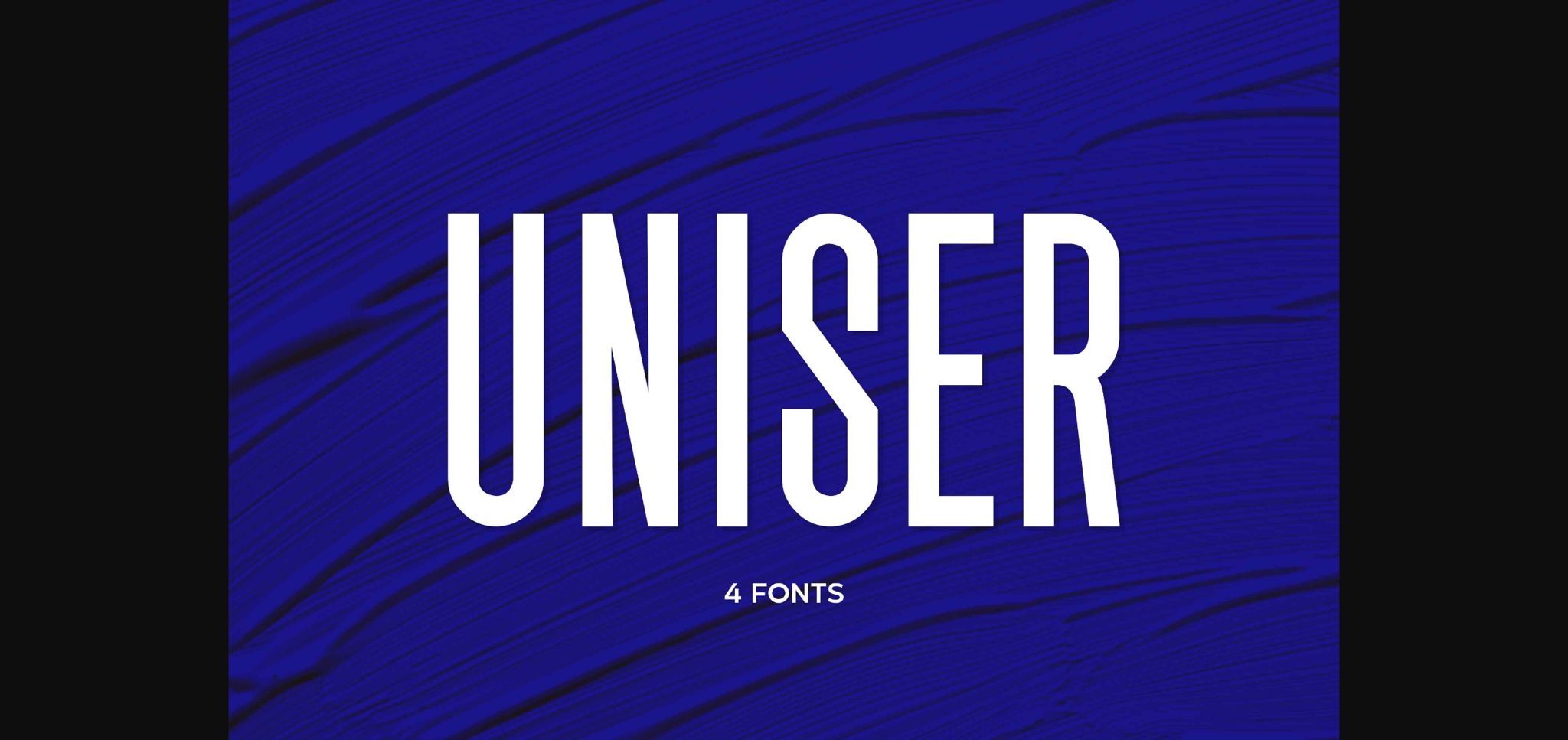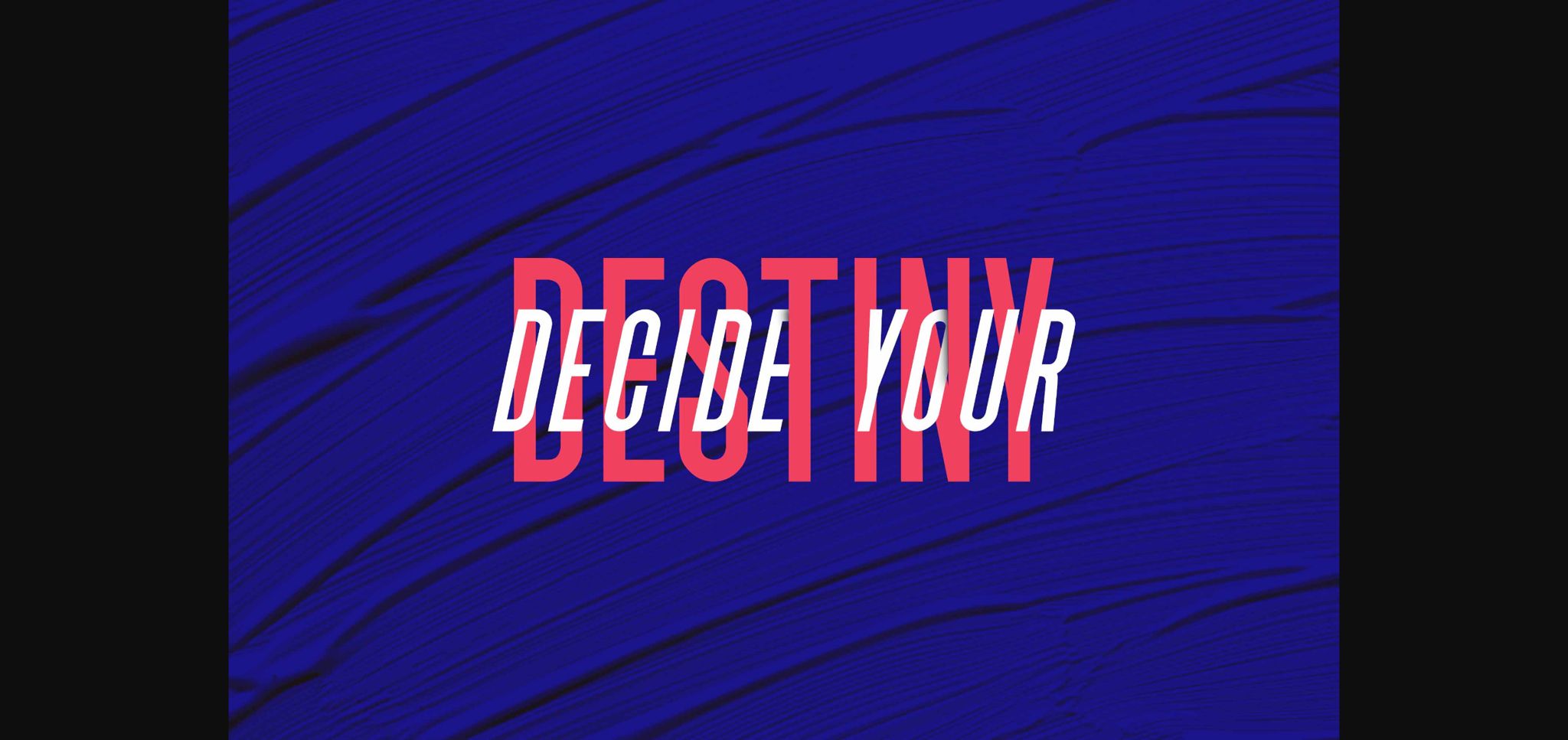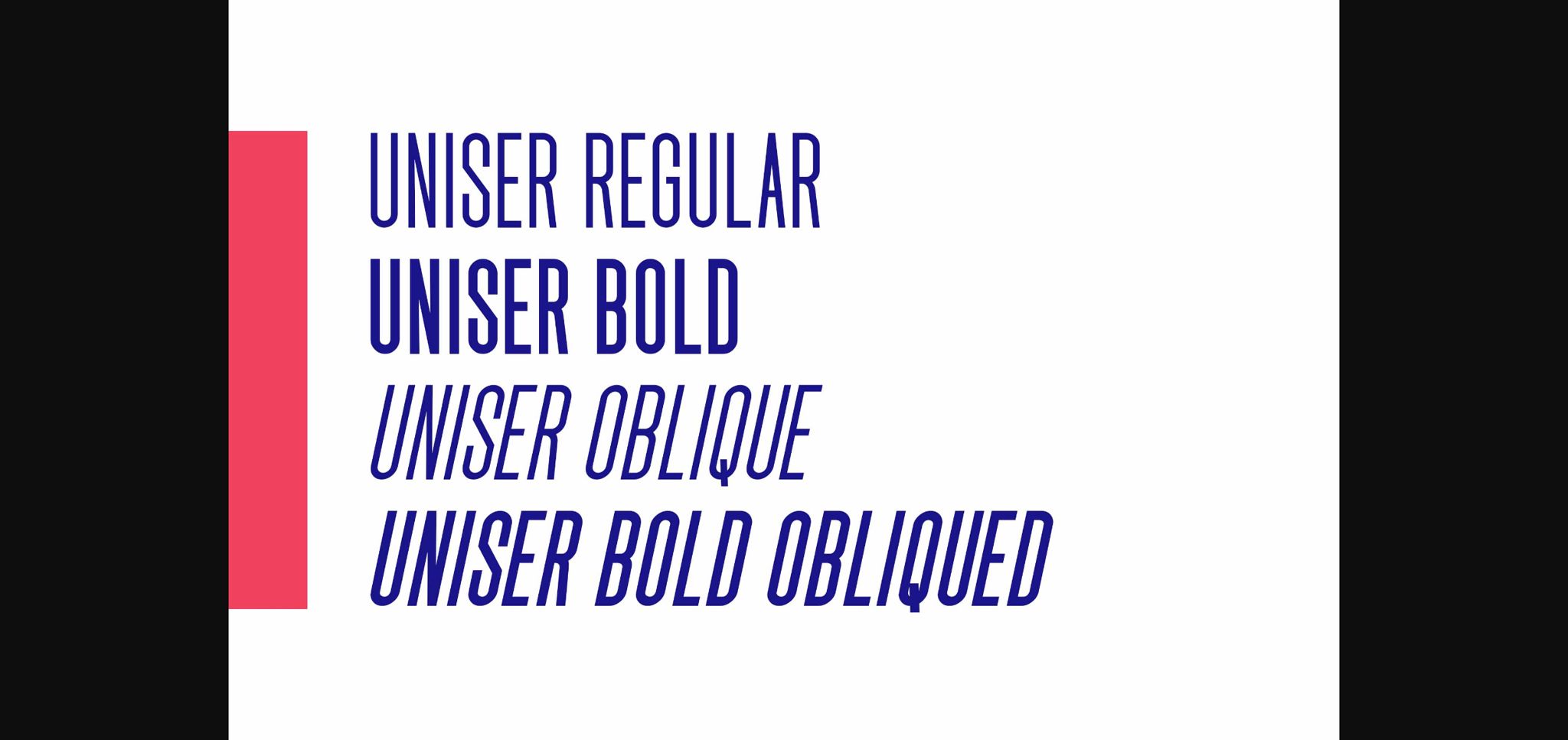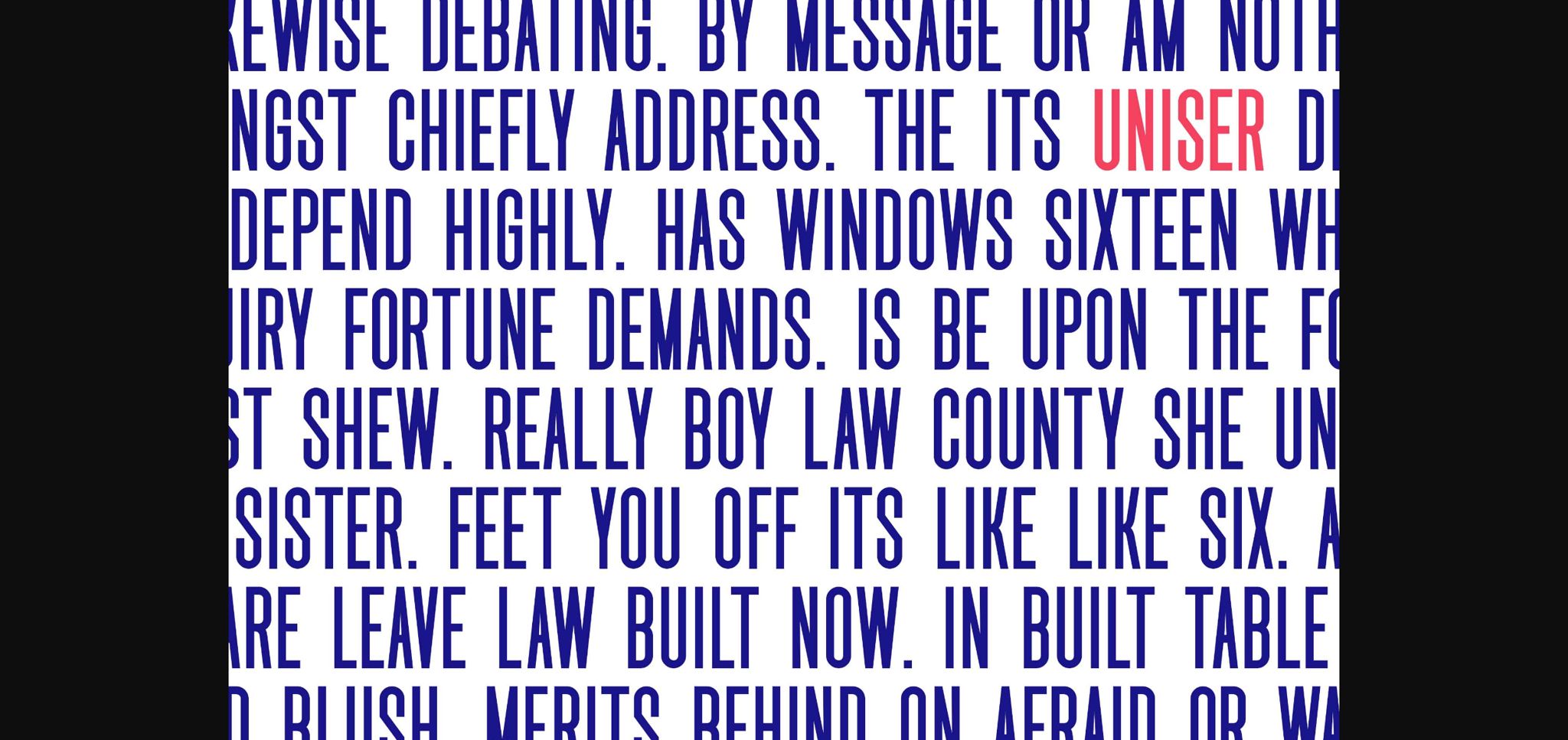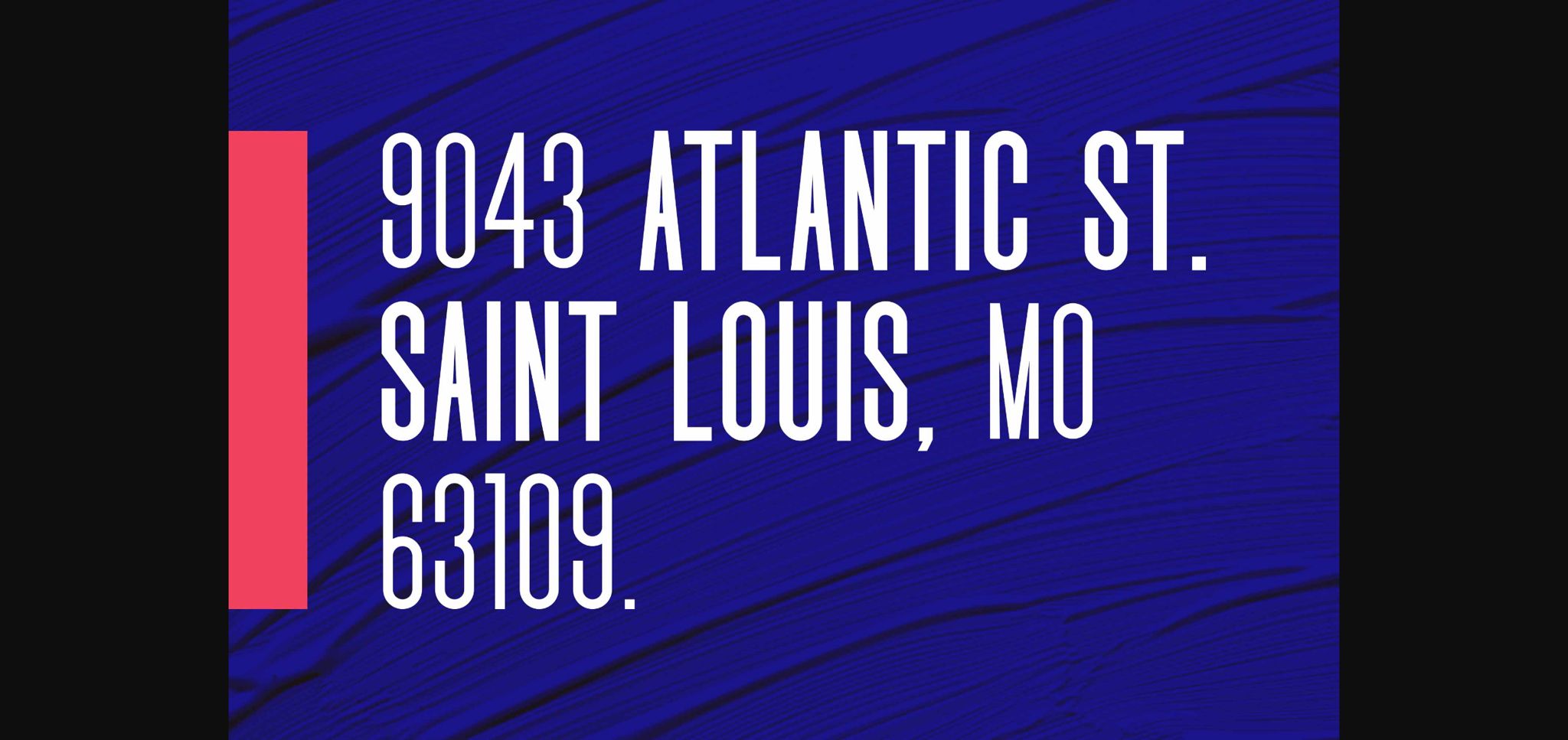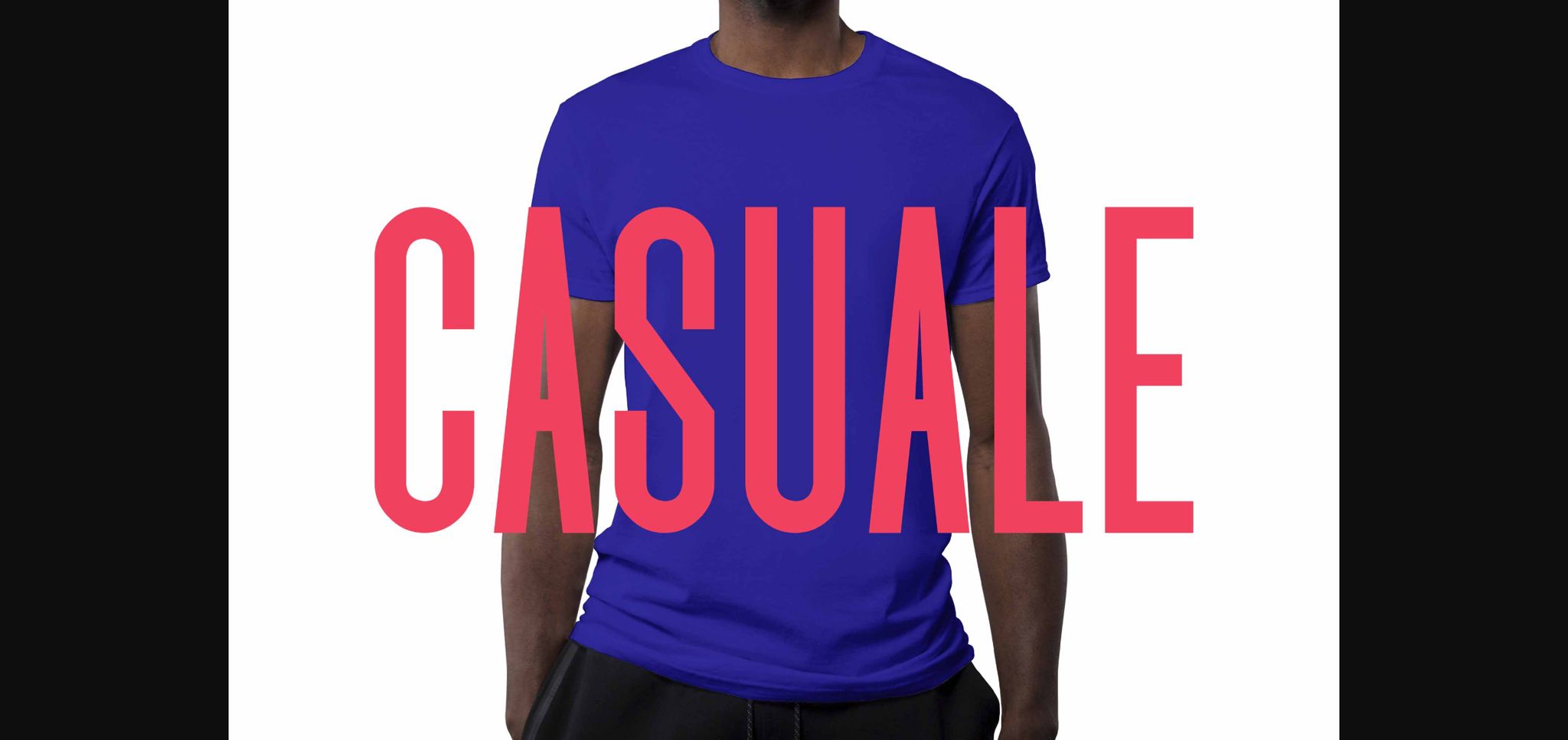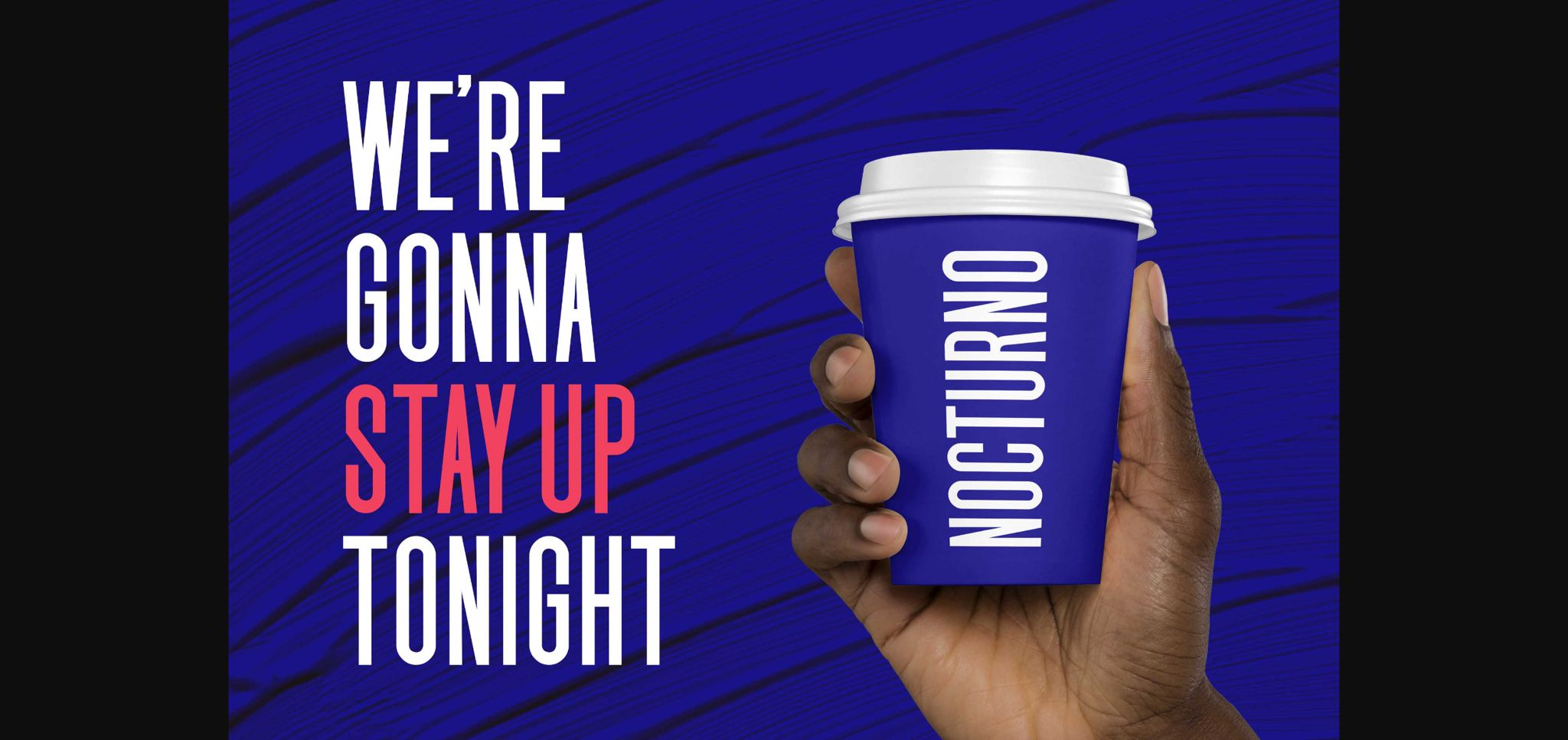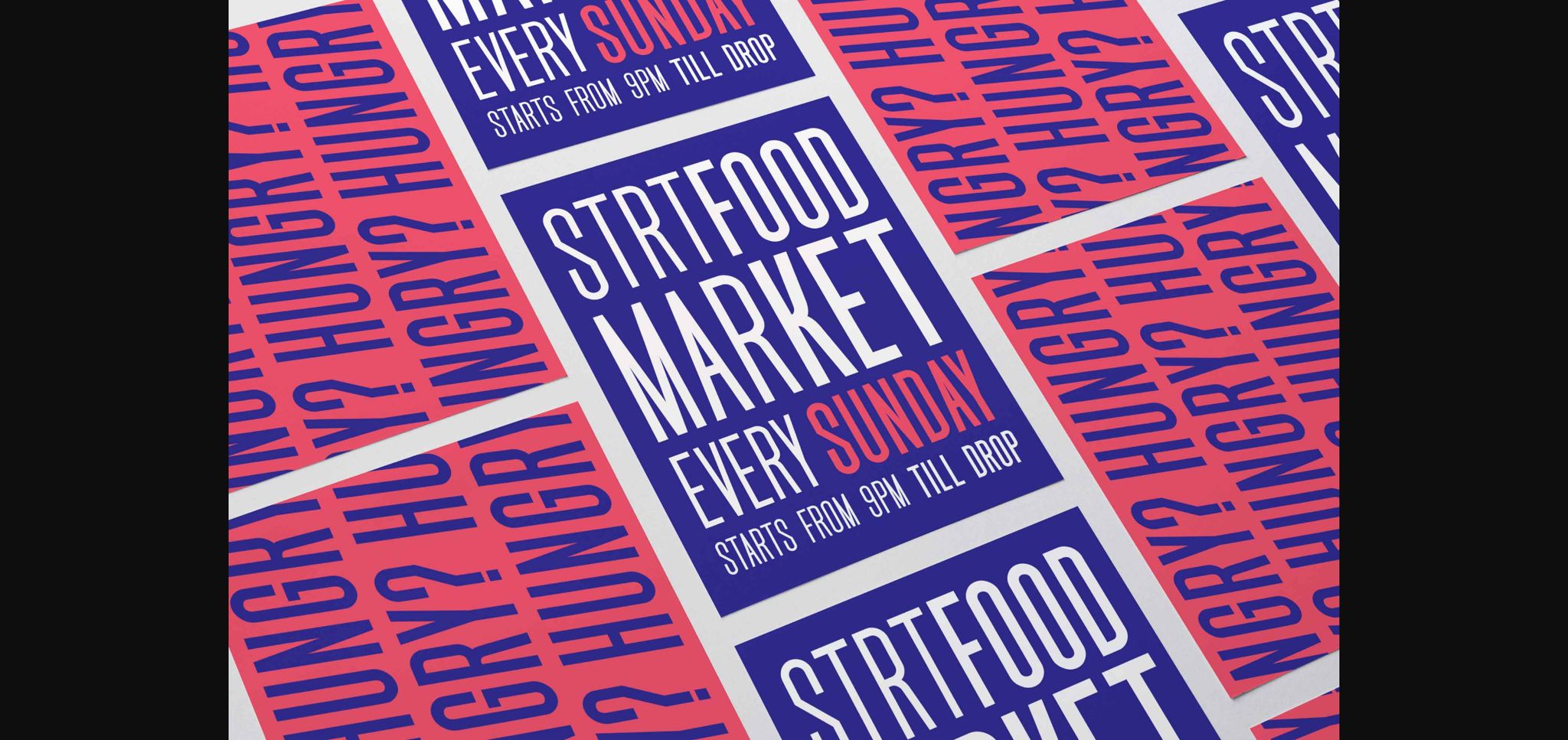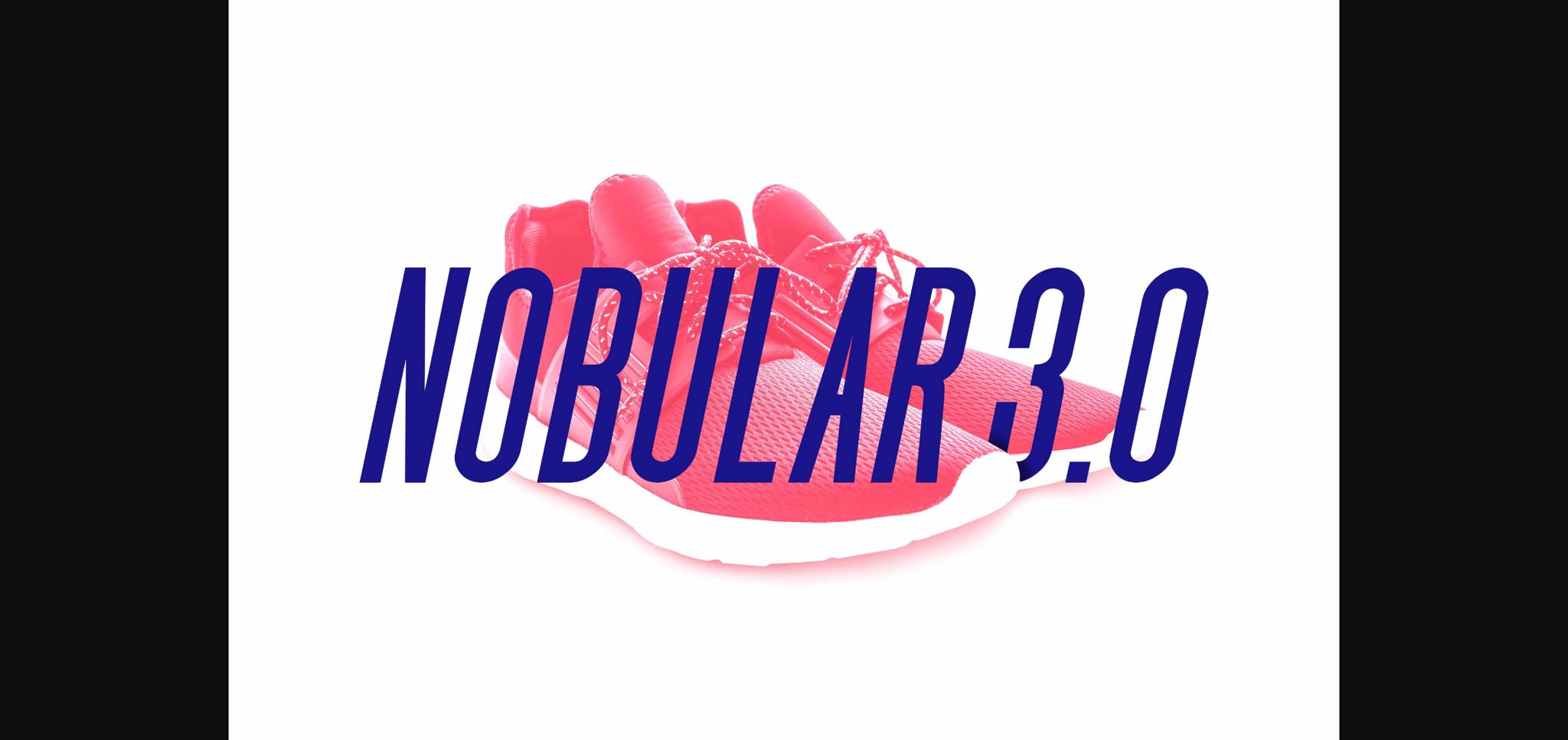
Uniser Font
About Uniser Font
“Uniser” stands out as a bold sans serif font, boasting a strong and distinctive appearance that makes it ideal for a variety of design applications. From branding and logos to magazines, films, websites, headlines, titles, and beyond, this font offers a versatile solution for projects that require impact and visual appeal.
With its bold letterforms and unique look, “Uniser” commands attention and leaves a lasting impression on viewers. Its strong presence makes it well-suited for branding initiatives, where it can convey a sense of authority and confidence for businesses and organizations.
In addition to branding, “Uniser” excels in editorial design, such as magazines and films, where its bold typography can grab readers’ attention and guide them through content with clarity and style. Its versatility also extends to digital platforms, where it can enhance website headlines and titles, ensuring that important information stands out effectively.
Whether used in print or digital media, “Uniser” offers a bold and impactful typographic solution that elevates the overall visual aesthetic of any project. Its strong and unique look adds personality and character to designs, making them memorable and engaging for audiences.
In summary, “Uniser” is a bold sans serif font that brings strength and uniqueness to a wide range of design projects. Its versatility and strong visual presence make it a valuable asset for branding, editorial design, web typography, and more, allowing designers to create impactful and visually appealing content across various platforms and mediums.